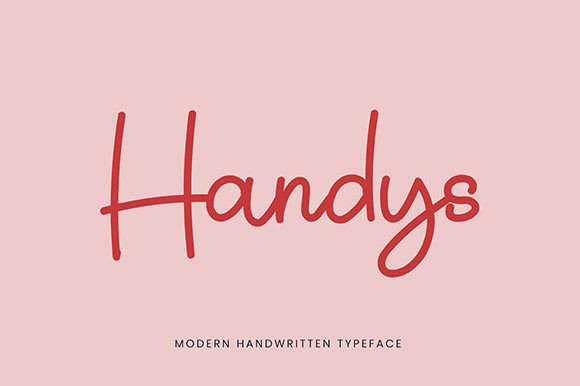
Are you weary of your mundane, monotonous designs? Are you ready to inject a breath of life into your creative projects? Look no further than Handys, the font that will ignite your imagination and elevate your designs to unparalleled heights.
With its delicate strokes and graceful curves, Handys is the ultimate script font, meticulously crafted to evoke a sense of elegance and sophistication. Its timeless style whispers stories of a bygone era while simultaneously captivating the modern eye.
Unleash the infinite possibilities that await you with Handys, a font designed to make your words dance off the page. From captivating logos that demand attention to mesmerizing invitations that leave a lasting impression, Handys will transform your creative visions into stunning realities.
Immerse yourself in the world of Handys and discover the endless opportunities it presents. Create social media posts that pop, design marketing materials that resonate, and craft website layouts that leave users spellbound. Let Handys be your muse, your guiding light, as you embark on a creative journey unlike any other.
Step into a realm where creativity knows no bounds, where your designs will captivate and inspire. Let Handys be your secret weapon, the font that transforms your projects into masterpieces. Experience the magic of Handys today and embark on a creative odyssey that will leave you breathless.